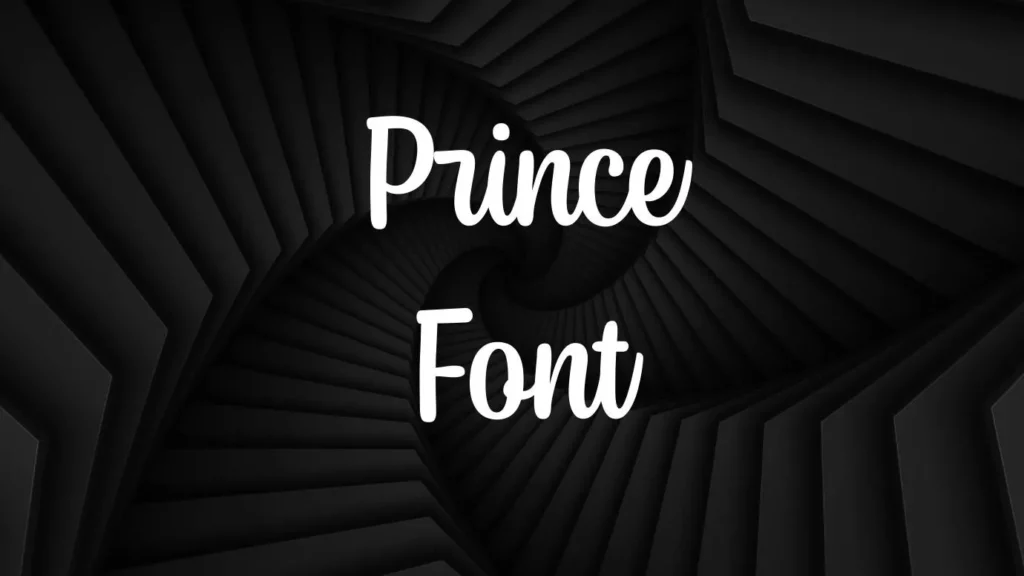
This traditional and classy typeface Prince Font was designed by famous graphic designer Wiescher. He made many other famous fonts and has a great name in the
If you are looking for some decorative typeface then Prince Font is the best option to choose. It has great texture and stunning styles that will make your projects more astonishing and appealing. It comes in a display font family which means it can be used in any kind of display project. it is suitable for small as well as large screen projects. many famous designs got inspiration from this typeface and utilize it in many brand projects.
This traditional and classy typeface Prince Font was designed by famous graphic designer Wiescher. He made many other famous fonts and has a great name in the font industry. It has a bold style that comes in capital letters, small letters, punctuations, digits, and many famous symbols.
It has a pairing nature which means it can pair with other fonts and make aesthetic combinations. It has a bold texture and cutting edges that can be utilized in many fundamental projects. you can create this font online via its generators. This typeface is perfect for water and flames font. It is one of the easy processes you just need to put simple text into its generator and generate new style font. It can be copied from the generator and pasted into your projects.
It is one of the unique decorative typefaces that have a display font family. it has bold nature and eye-catchy texture.
This traditional and classy typeface Prince typeface was designed by famous graphic designer Wiescher.